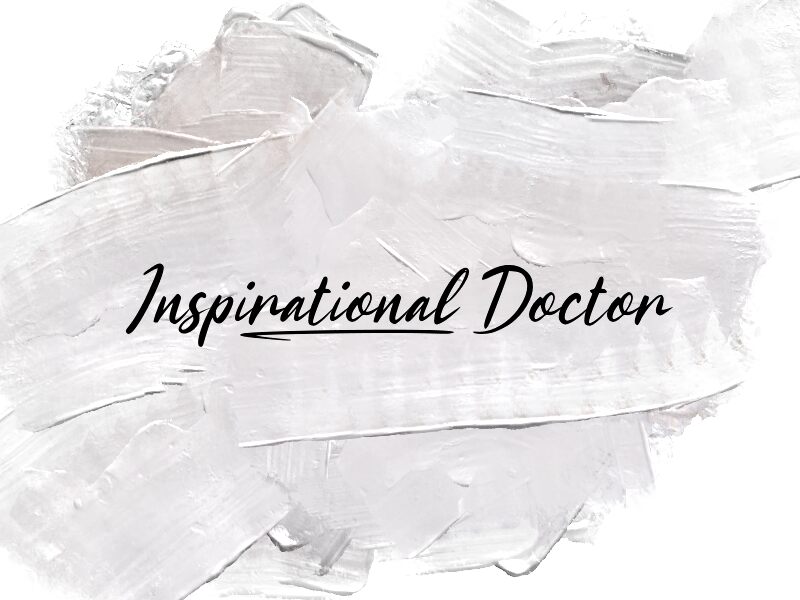
i Inspirational Doctor font
i Inspirational Doctor
Inspirational Doctor is a versatile free font that embodies a blend of creativity and professionalism. Its elegant design makes it suitable for various projects, from educational materials to health-related branding. With its clean lines and approachable style, this font can elevate your designs and enhance readability.